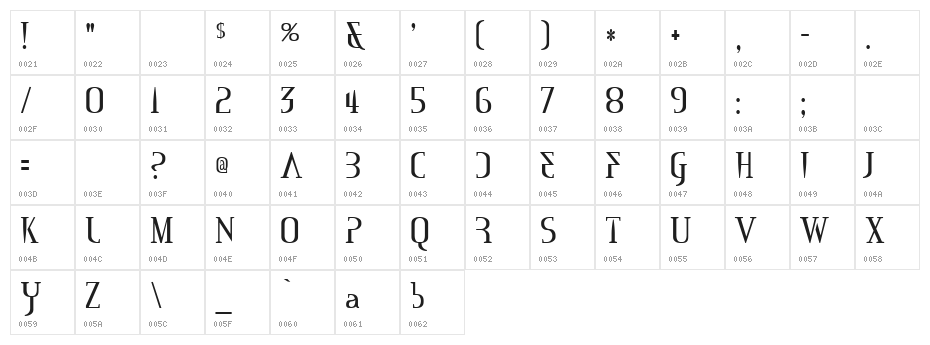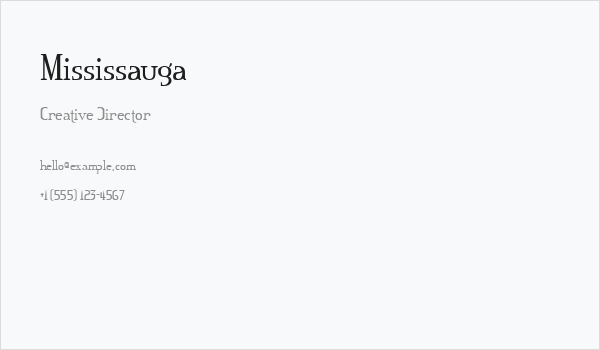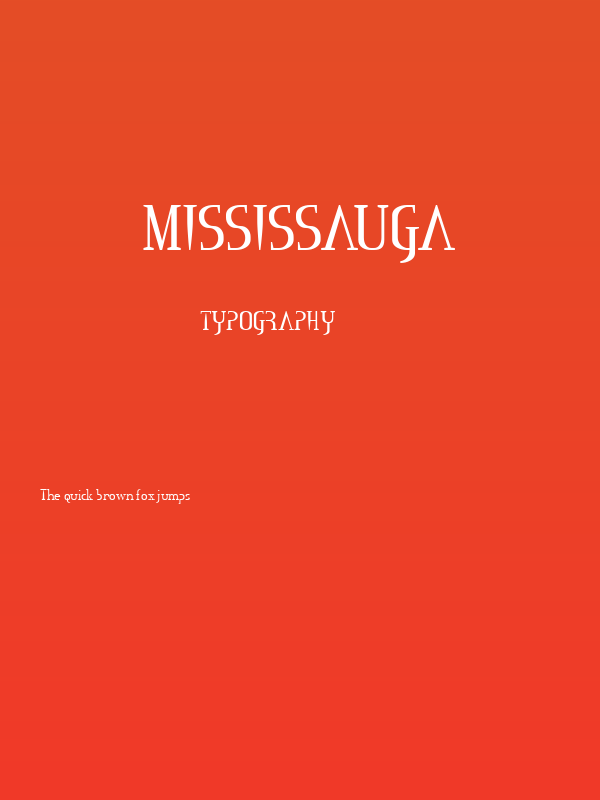
Mississauga Font
Mississauga Description
This font features a unique blend of modern and classic elements, characterized by its sharp, angular serifs and clean lines. The uppercase letters exhibit a distinct geometric style, with some characters like 'A' and 'M' having a striking triangular form. The lowercase letters maintain a consistent height, providing a balanced and harmonious appearance. Numbers are bold and easily readable, with a slight artistic flair in characters like '2' and '5'. Special characters are designed with the same attention to detail, ensuring they complement the overall aesthetic. This font's design is both sophisticated and versatile, making it suitable for a wide range of applications.
Use CaseHeadlines, Logos, Editorial Design
Proposed ProjectsIdeal for branding, editorial design, and high-end product packaging.